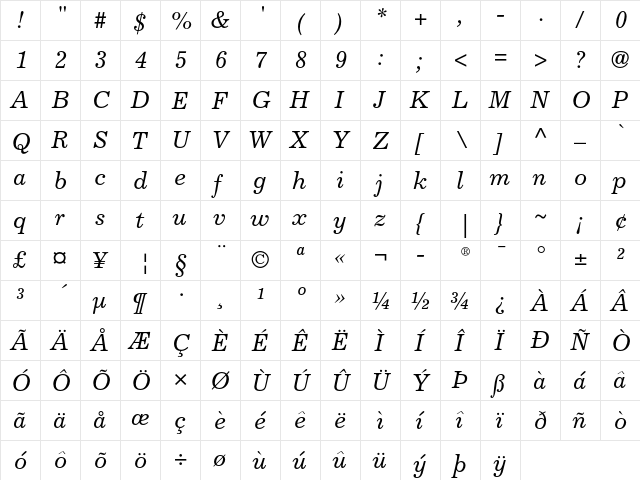
Excelsior Italic
Design Context for Excelsior Typeface
Excelsior takes a measured approach to typography — its balanced proportions and neutral character make it a reliable workhorse for both digital and print work. Its italic angle brings a sense of urgency and motion to the letterforms.
Pro Tip: Try Excelsior for annotation and caption copy alongside an upright companion — the contrast in angle creates a dynamic but ordered typographic system.